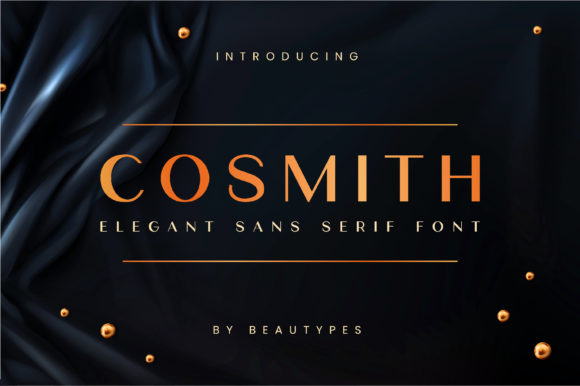
Cosmith: The Versatile Typeface for Modern Branding
In the fast-paced world of digital marketing, your visual assets have less than a second to make an impression. As content creators and brand managers, we know that the difference between a scroll-past and a click often comes down to typography. Enter Cosmith, a sophisticated duo font system that seamlessly blends the authority of a serif font with the approachability of a sans serif counterpart. This isn't just another design asset; it is a strategic tool for building cohesive brand identity across every touchpoint of your customer journey.
At its core, Cosmith offers a unique visual personality. It strikes a balance between classic elegance and modern minimalism, making it an ideal choice for businesses that want to appear established yet forward-thinking. The serif component brings a touch of editorial sophistication, perfect for headlines that need to command attention, while the sans serif element ensures clarity and readability in body copy or smaller captions. This duality allows marketers to maintain visual consistency without sacrificing variety, a common challenge when managing multi-platform campaigns.
Elevating Social Media Graphics and Campaign Visuals
Social media feeds are noisy environments where modern typography must work harder to stand out. Cosmith excels in creating scroll-stopping visuals for Instagram posts, Pinterest pins, and LinkedIn carousels. When designing a product teaser or a seasonal promotion, the serif variant of Cosmith can be used for impactful headlines that evoke trust and quality. Meanwhile, the sans serif style handles the call-to-action buttons and detailed information with crisp precision.
Consider a flash sale announcement for an online shop. Using the bold weight of the Cosmith sans serif for the "50% OFF" text ensures immediate legibility on mobile screens, while the serif font can frame the message with a stylish border or decorative accent. This combination creates a strong visual hierarchy, guiding the viewer's eye exactly where you want it to go. For Reels covers and YouTube thumbnails, where space is limited and competition is fierce, Cosmith's clean lines prevent clutter, ensuring your message remains clear even at small preview sizes.
Strategic Applications for Digital Ads and Web Design
Beyond social media, Cosmith proves invaluable in paid advertising and web design. Digital ads on platforms like Facebook and Google Display Network require fonts that load quickly and render sharply across devices. As a optimized display font, Cosmith maintains its character integrity whether viewed on a high-resolution desktop monitor or a budget smartphone. This reliability is crucial for maintaining professional standards in client campaigns.
For landing pages and email headers, readability is paramount. Long blocks of text can deter potential leads, but pairing the Cosmith serif for subheadings with its sans serif partner for body text creates an inviting reading experience. This technique, often seen in high-end editorial design, elevates the perceived value of your content. Whether you are launching a webinar banner or promoting a new service, this typographic harmony suggests attention to detail and professionalism.
Mastering Font Pairing and Visual Consistency
One of the greatest strengths of a duo font system is the elimination of guesswork in font pairing. Typically, designers spend hours testing a script font against a geometric sans or a slab serif against a humanist typeface. With Cosmith, the heavy lifting is done for you. The two styles are mathematically and aesthetically calibrated to work together. This saves valuable time for marketing teams who need to produce high volumes of content daily.
However, flexibility remains key. While Cosmith works perfectly as a standalone system, it also plays well with others. For a more experimental look, you might pair the Cosmith sans serif with a delicate handwritten font for signatures or annotations in story-based content. Conversely, using the Cosmith serif alongside a ultra-light sans serif from a different family can create a dramatic contrast suitable for luxury brand campaigns. The key is to ensure that the x-heights and stroke weights do not clash, preserving the overall harmony of the design.
Optimizing for Mobile and Fast-Scrolling Feeds
Readability on mobile devices cannot be overstated. Over 60% of web traffic comes from mobile, and social media usage is almost exclusively mobile-first. Cosmith's open apertures and generous spacing ensure that letters do not blur together on small screens. When creating graphics for Instagram Stories or TikTok overlays, avoid using the thinnest weights of the serif font for critical information, as these may get lost against busy backgrounds. Instead, reserve the lighter cuts for large, decorative headlines and use the medium or bold sans serif weights for essential details like dates, times, and URLs.
For fast-scrolling feeds, your typography must communicate the core message instantly. A well-crafted headline in Cosmith can convey the mood of a post before the user even reads the words. The serif elements suggest tradition and reliability, while the sans serif components signal innovation and speed. This psychological cue helps influence audience perception, making your brand feel both grounded and dynamic.